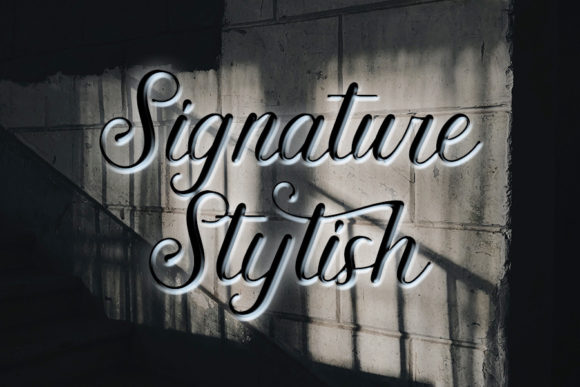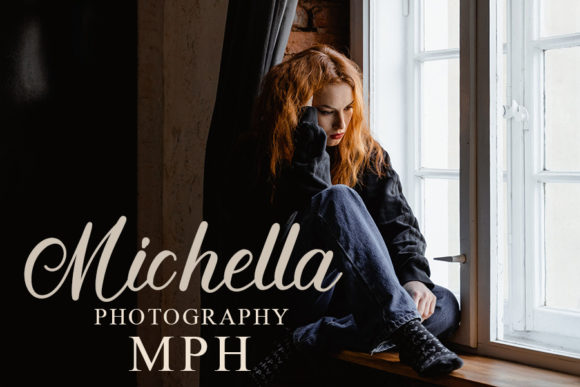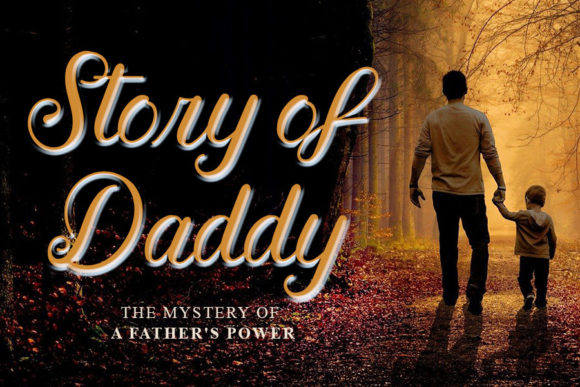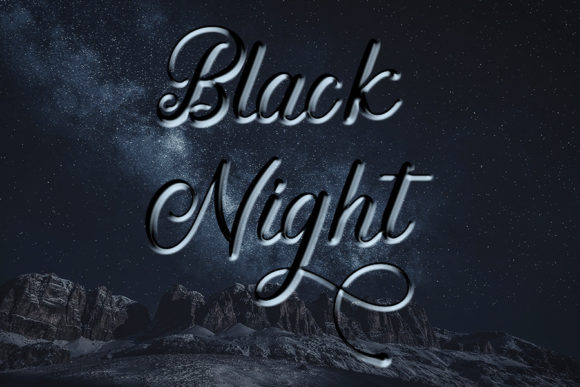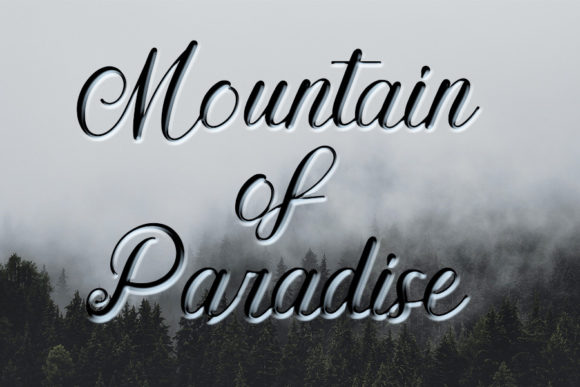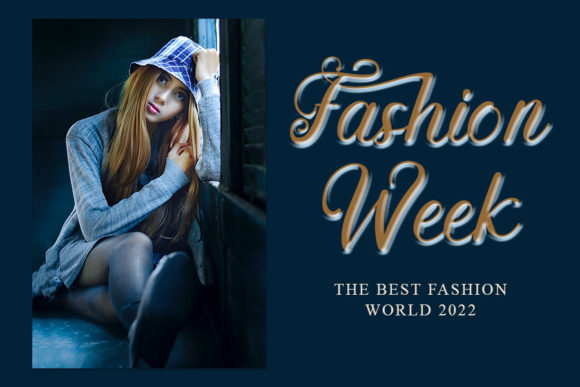
Discover the Timeless Charm of Biography Font
As a designer, have you ever stumbled upon a font that transports you to a different era, evoking feelings of nostalgia and elegance? That’s exactly what happens when you come across the Biography Font. This exquisite handwritten font is a masterclass in balance and sophistication, making it the perfect choice for designers who crave a touch of sophistication in their designs.
The Biography Font is a delicate and refined font that’s perfect for creating bespoke designs that exude luxury and style. Whether you’re crafting a wedding invitation, a branding package, or a social media campaign, this font is sure to elevate your work to the next level. With its versatility and timeless charm, the Biography Font is a valuable addition to any designer’s toolkit.
Biography Font Key Features
- Unique Character Set: The font includes a wide range of characters, including accented letters, ligatures, and swashes, making it ideal for use in biographies and other types of historical writing.
- Historical Aesthetic: The font is designed to evoke the look and feel of traditional biographies from the 19th and early 20th centuries, with a classic, elegant appearance.
- High-Quality Typography: The font features high-quality typography, with precise letterforms and attention to detail, making it suitable for use in both digital and print applications.
- Multi-Language Support: The font includes support for a range of languages, including English, French, Spanish, German, Italian, and more, making it a versatile choice for use in biographies and other types of writing.
Biography Font Review
Overall, I’m impressed with the unique aesthetic of the Biography Font. Here’s what stands out to me: ✨
- Its elegant, cursive design makes it perfect for creating a sense of nostalgia and sophistication.
- The font’s high x-height and generous letter spacing ensure readability, even in larger blocks of text.
- It’s an excellent choice for projects that require a touch of elegance, such as wedding invitations, luxury branding, or historical designs.
However, there are some limitations to consider: ⚠️
- The font’s intricacy can make it difficult to use in small sizes or for body text, where clarity is essential.
- Its ornate design may not be suitable for modern or minimalist projects, where simplicity is key.
- The font’s complexity can make it challenging to pair with other fonts, requiring careful selection to avoid visual overload.
Overall, I think the Biography Font is a great choice for designers who want to add a touch of sophistication and elegance to their projects. While it may not be suitable for every project, its unique design and high-quality craftsmanship make it a valuable addition to any designer’s toolkit.
Tips for Getting the Most Out of Biography Font
Biography Font is perfect for creating a classic and elegant look. To get the most out of it, try combining it with a serif font for a balanced design. You can also experiment with different font sizes and colors to create visual interest.
Biography Font is commonly used in:
- Biographical texts and essays
- Book covers and title pages
- Personalized certificates and invitations
- Formal business documents and reports
Playfair Display is a more refined and polished alternative to Biography Font, with a more complex and ornate design. While Biography Font is a more straightforward and modern script, Playfair Display is better suited for formal and traditional designs.